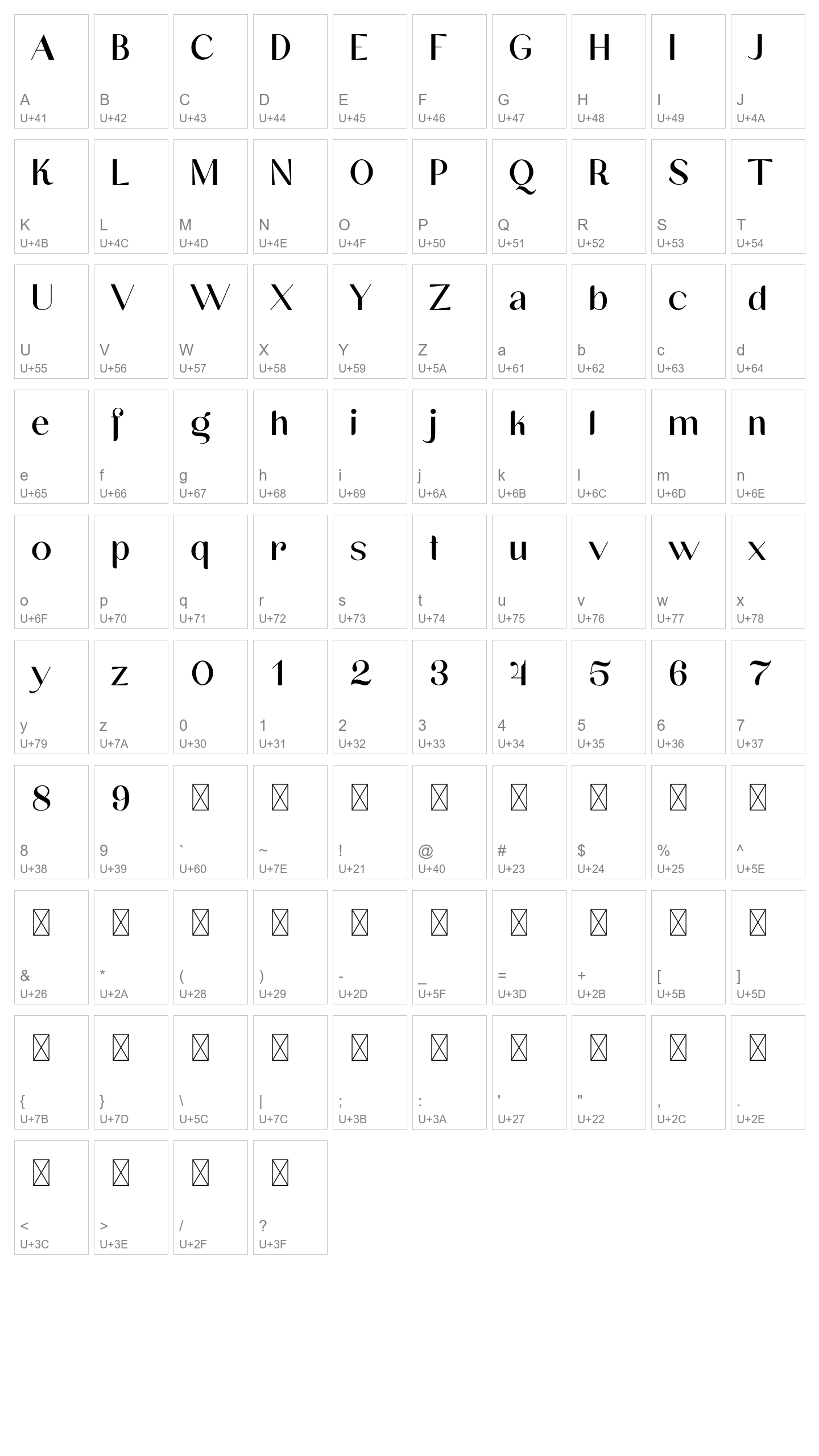
Brogi
Brogi is a FREE and sophisticated font that exudes boldness and confidence. ItÂ’s perfect for logos and branding projects, and its subtle yet bold style will ensure your designs stand out. Download Brogi today and experience the boldness and sophistication for yourself.